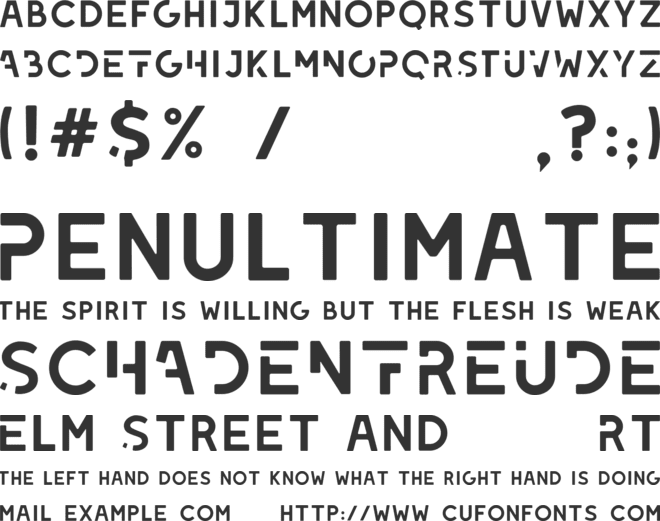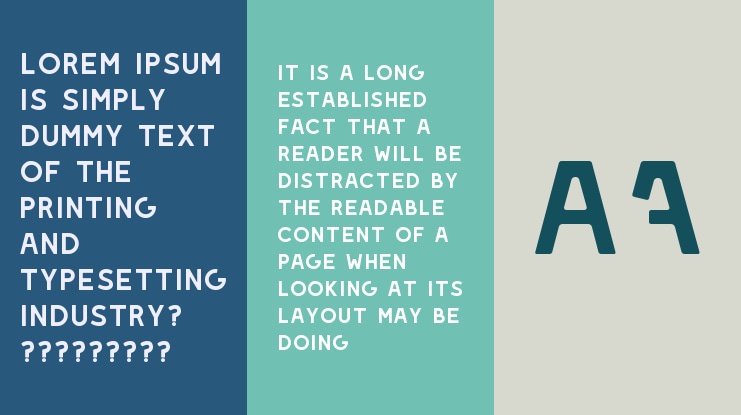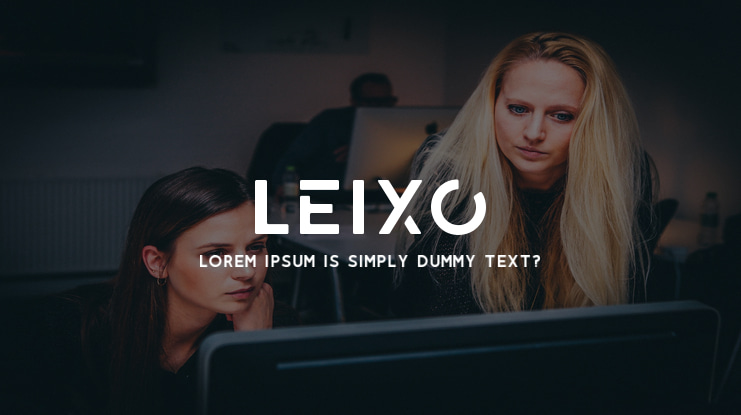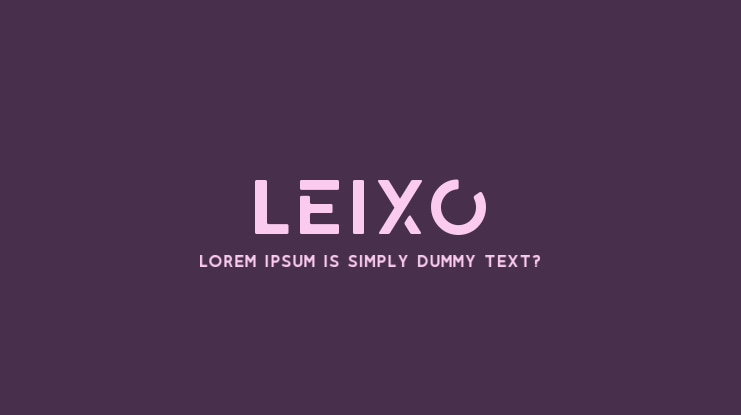
LEIXO Font
Leixo is a fancy stencil with a lot of features to use. You can use lower and upper case to create a mixture of a stencil touched multifunctional headline.
To use the ligature, just type "theliga" and you will get a unique designed pre-set eyecatcher. There are more ligatures and styles in the full version!